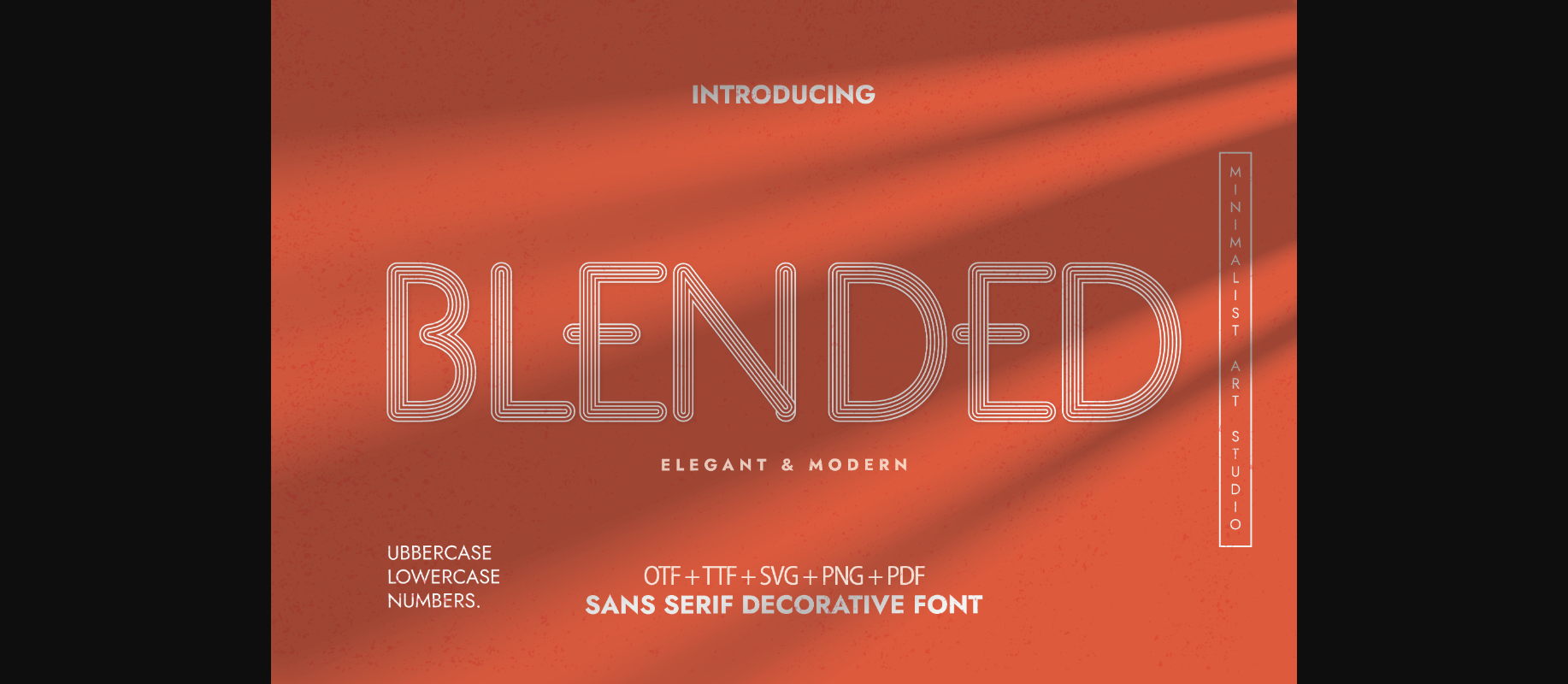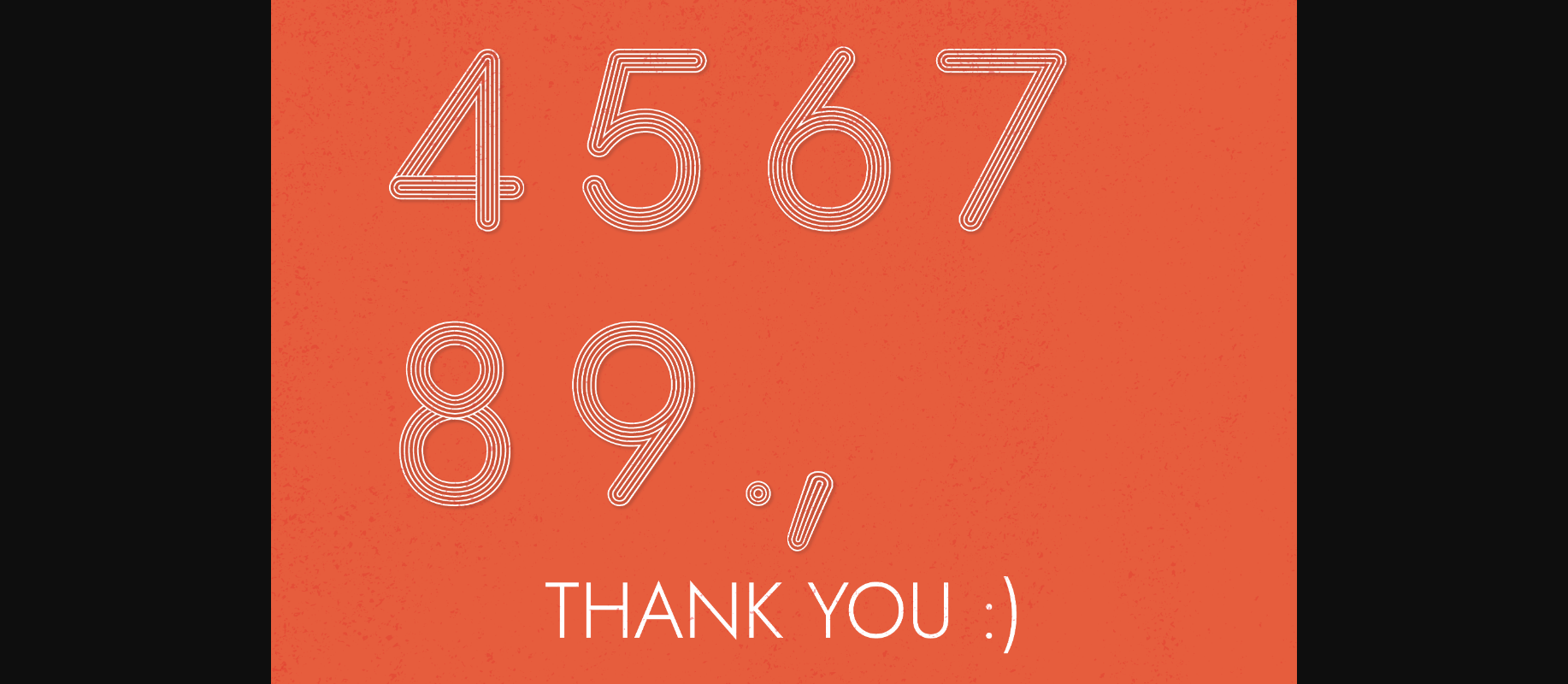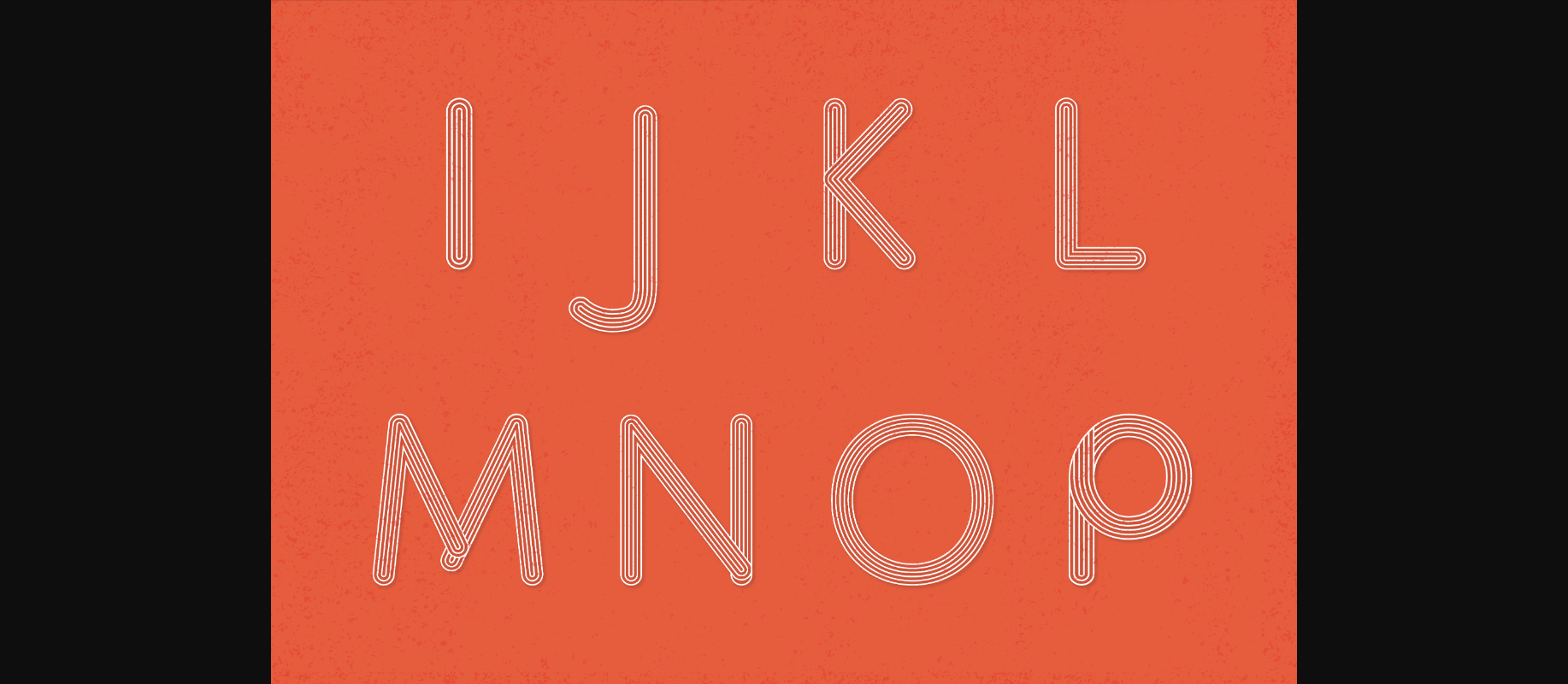
About Blended Font
Blended is an elegant and cool looking decorative font. Expertly designed to make your creation look out of this world, this font will look gorgeous on a variety of ideas.
This font is ideal for writing web designs, business cards, or pretty much anything else that requires a unique touch.